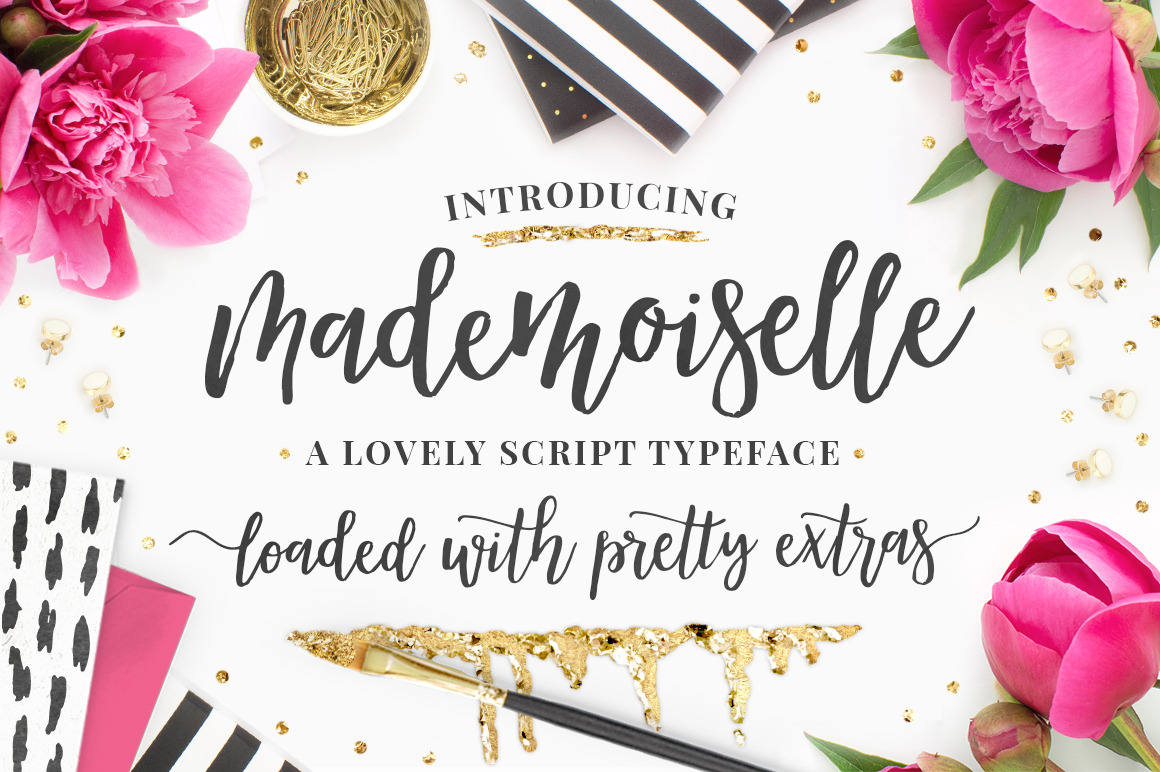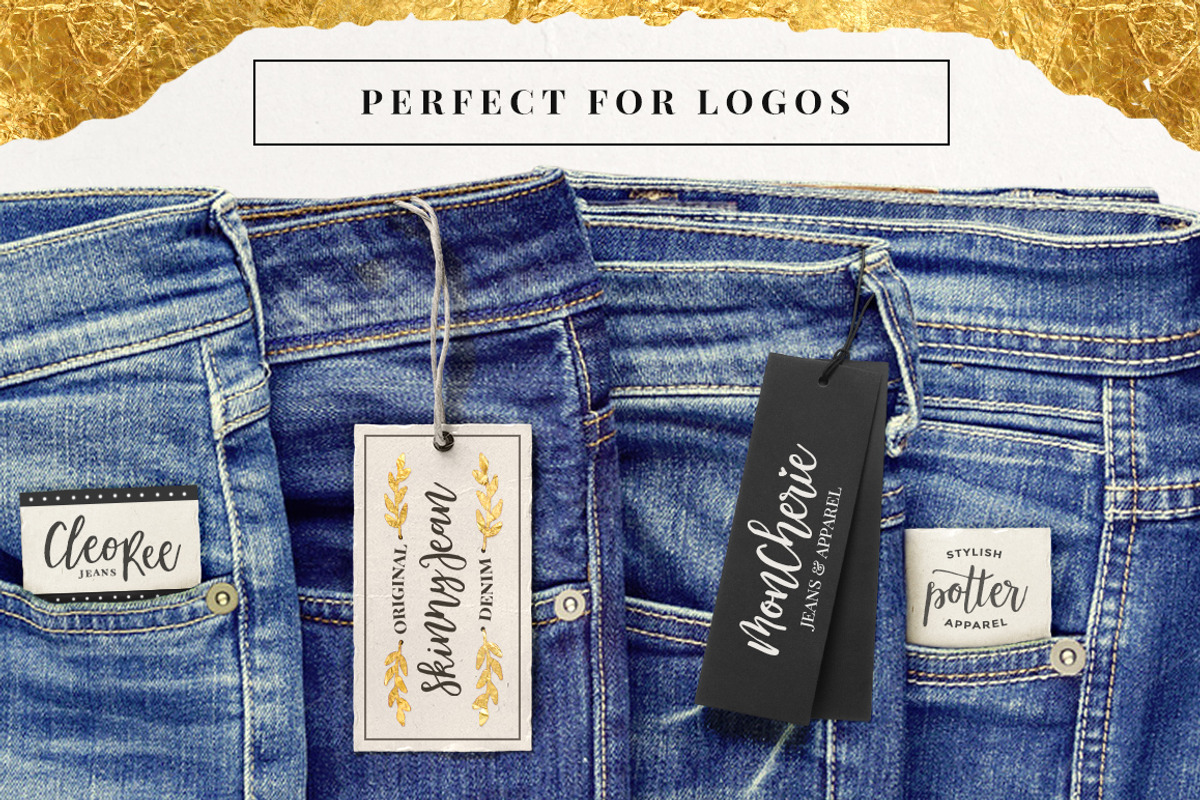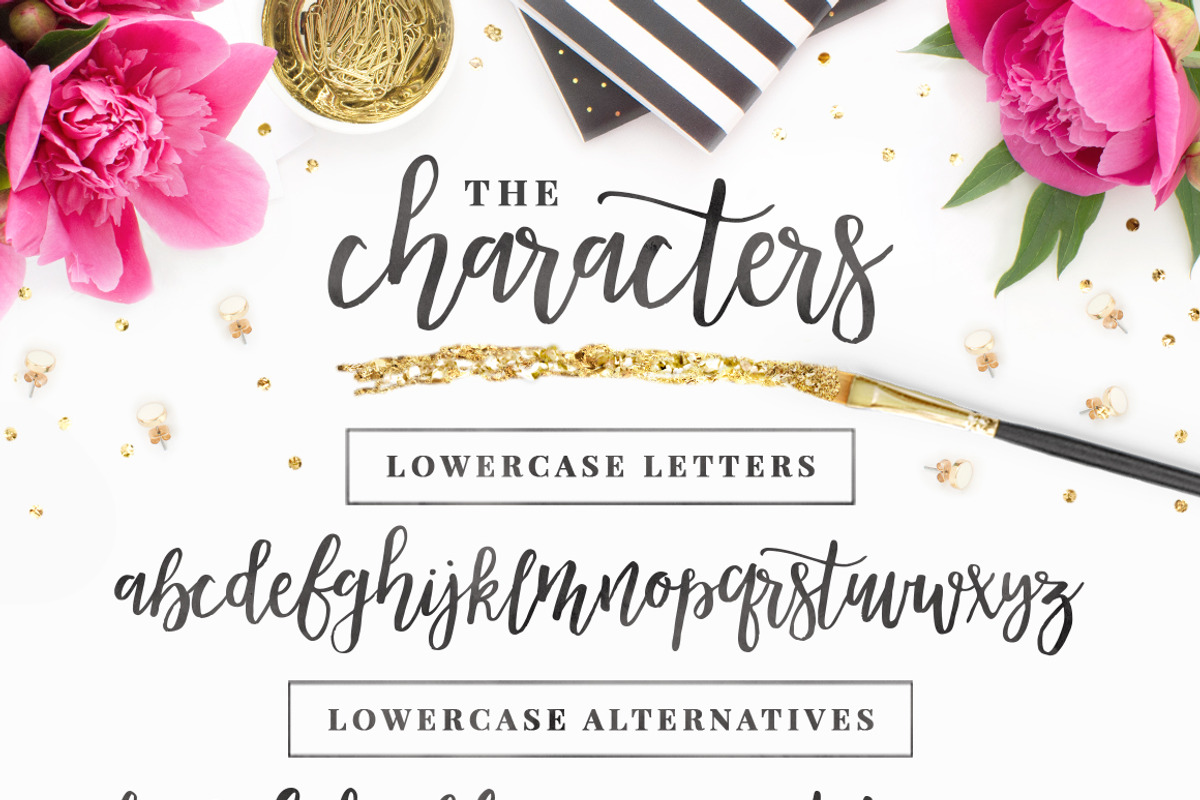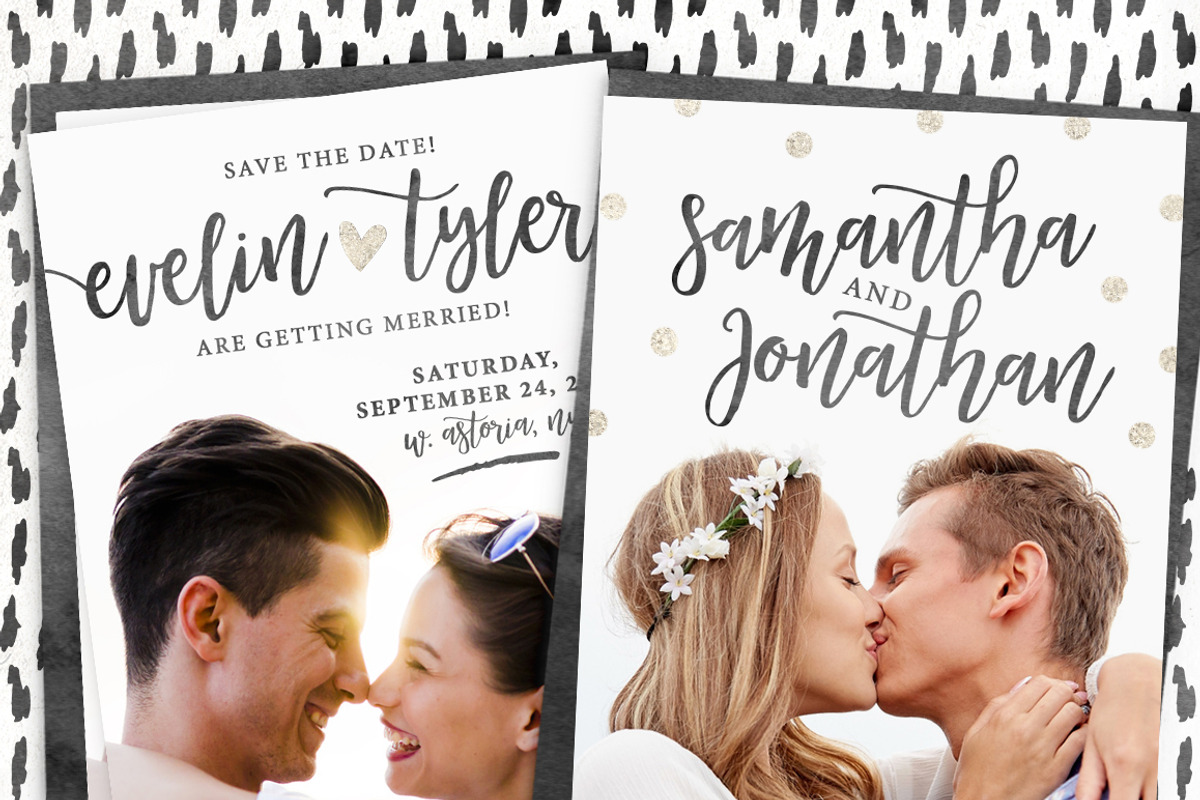
Mademoiselle Script Font + EXTRAS!
♥ Introducing Mademoiselle! A lovely, bouncy script font with lots of pretty extras! ♥
Mademoiselle is perfect for logos, branding, wedding invitations, greeting cards, prints, blog banners, apparel, quotes and so much more! Aaand as always, I included lots of lovely extras to play with! :)
MADEMOISELLE TYPEFACE This charming, bouncy script font comes in both .otf and .ttf files and international language support. :) I've also included a whole set of lowercase alternates, ligatures and as a sweet bonus, an all swash font to mix and match. ;) Wanna see more? Check the previews to see all the characters, symbols and supported languages. :)
MADEMOISELLE SWASHES A bonus, all swash font with 30 lovely swashes to mix & match with Mademoiselle. :) To access all the swashes use A-O and a-o & in case you need, you can preview them on the contact sheet included in the package. ;)